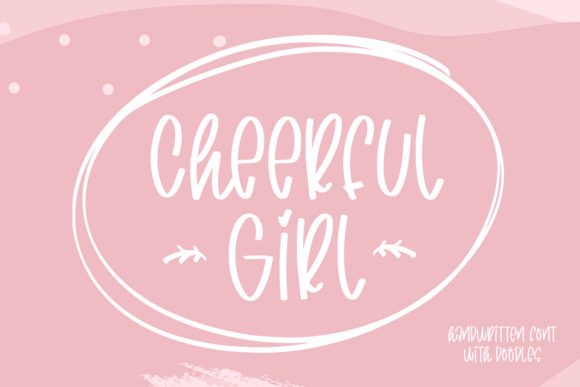
Behold, a font that dances with delight and sparkles with charm - Cheerful Girl Font, a creation of Abodaniel, awaits your embrace. This enchanting script font, crafted with the delicate strokes of a brush pen, promises to infuse your designs with a touch of whimsical delight.
Dive into the world of Cheerful Girl and discover a font that's as versatile as it is captivating. Whether you're crafting elegant wedding invitations or playful social media posts, this font will elevate your words with its unique personality. Its charming imperfections and delightful curves will add a touch of warmth and playfulness to any project.
With Cheerful Girl by your side, transform your Instagram bio into a captivating work of art. Let your words dance with joy, inviting your audience into a world of whimsy and wonder. Its readability and eye-catching style will make your profile shine, attracting followers who appreciate the finer details.
Picture this: a beautifully designed stationary set, adorned with the graceful strokes of Cheerful Girl. As you pen heartfelt letters or jot down your thoughts, feel the magic of this font envelop you. Its elegant curves and playful charm will turn your words into works of art, making every note a cherished keepsake.
Unlock the boundless creativity within you and let Cheerful Girl guide your artistic journey. Whether you're a seasoned designer or just starting out, this font will empower you to create captivating designs that leave a lasting impression. Its versatility knows no bounds, making it the perfect companion for a multitude of projects.